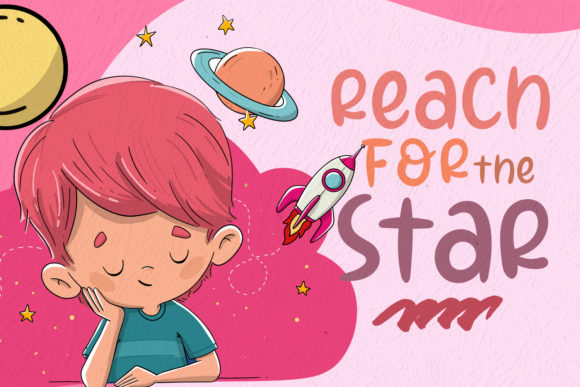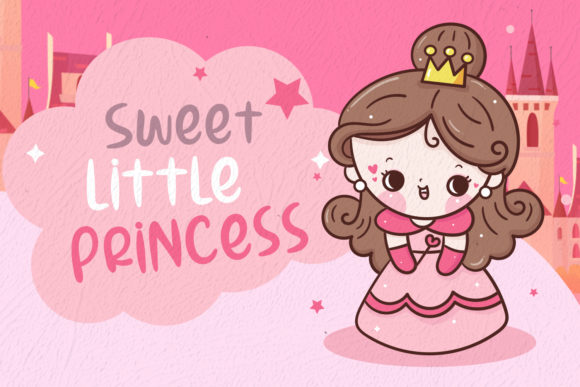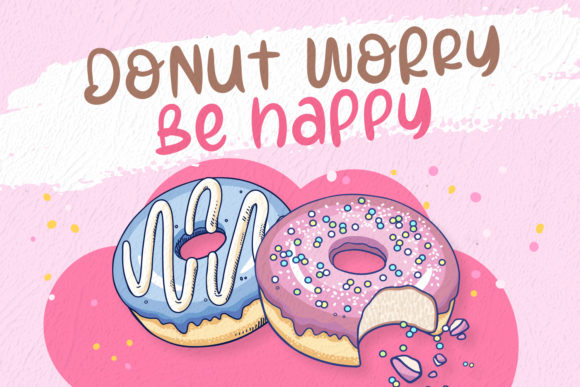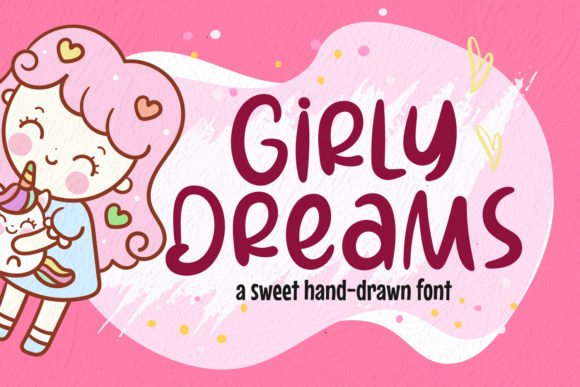
Introduction to Girly Dreams Font
Girly Dreams is a cute and casual handwritten font with an incredibly friendly feel.
Whether you’re looking for fonts for Instagram or calligraphy scripts for DIY projects, Girly Dreams will turn any creative idea into a true piece of art .
Key Features of Girly Dreams Font
Why Choose Girly Dreams Font?
Girly Dreams Font offers exceptional quality and versatility, making it a valuable addition to your design toolkit. Whether you’re creating for personal projects or commercial use, Girly Dreams Font delivers professional results.